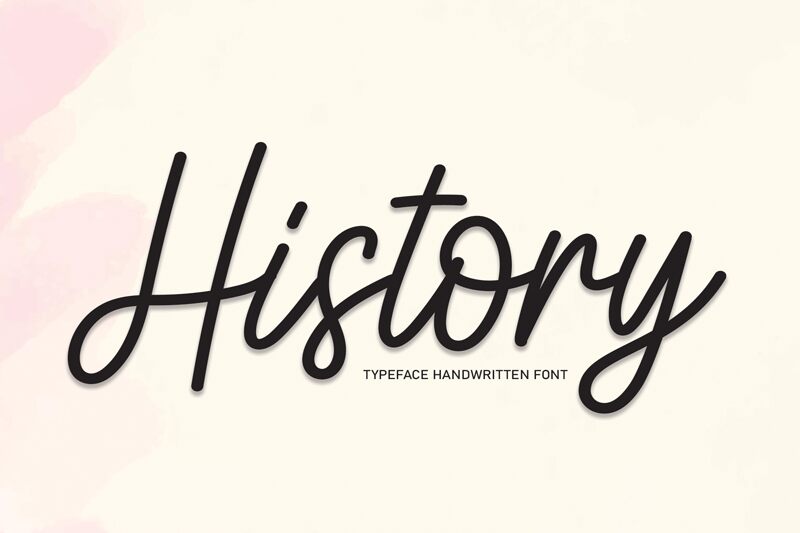
History
The History font, designed by Scratchones, brings a touch of elegance to any project with its beautifully handwritten style.
Its light weight adds a delicate and graceful feel to invitations, greeting cards, and wedding stationery. With its semi-condensed width, this font is also a great choice for creating eye-catching headlines on posters and advertisements. Whether you're designing an elegant menu or crafting a sophisticated logo, the History font will give your project a refined and timeless appeal.